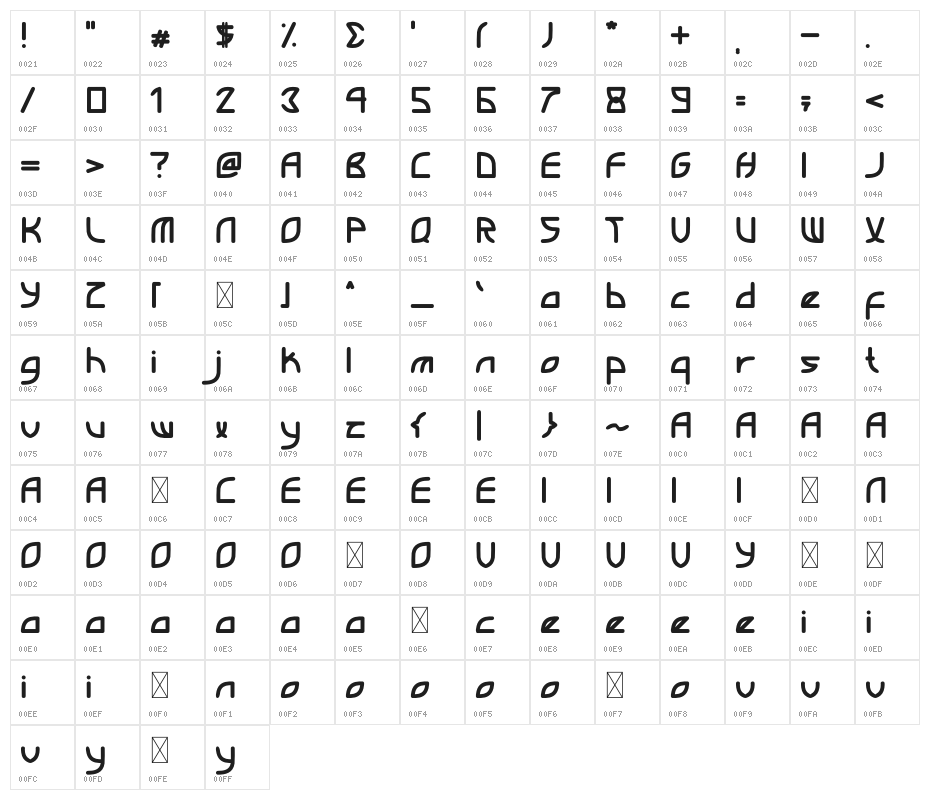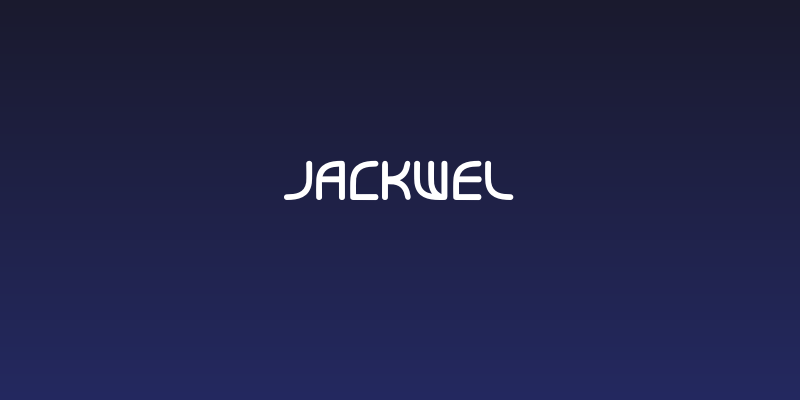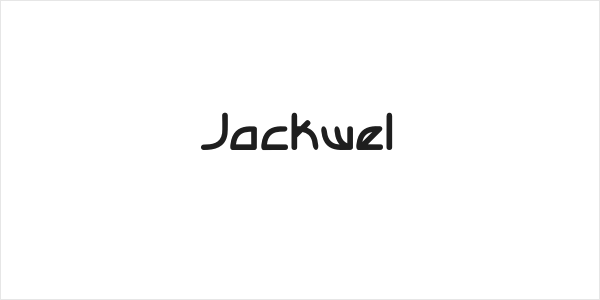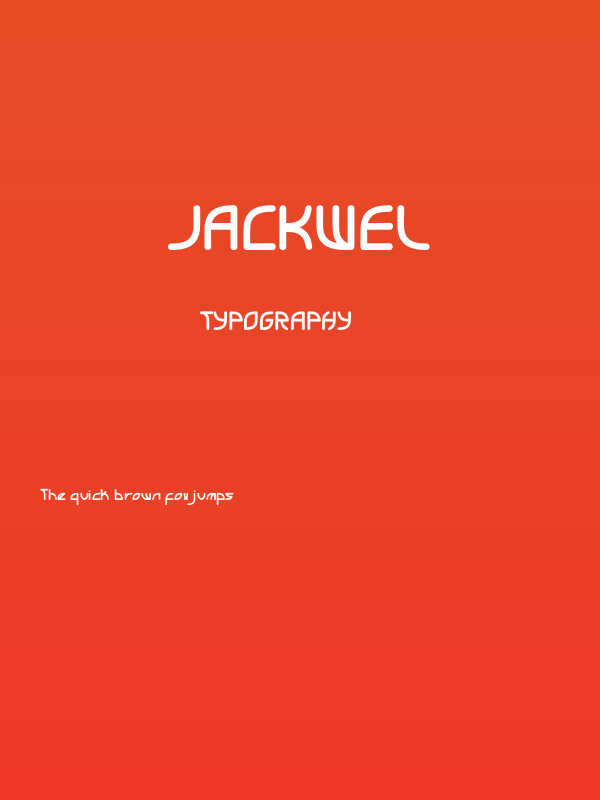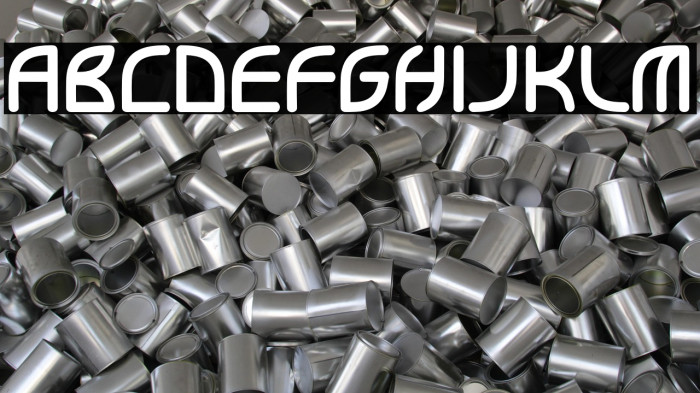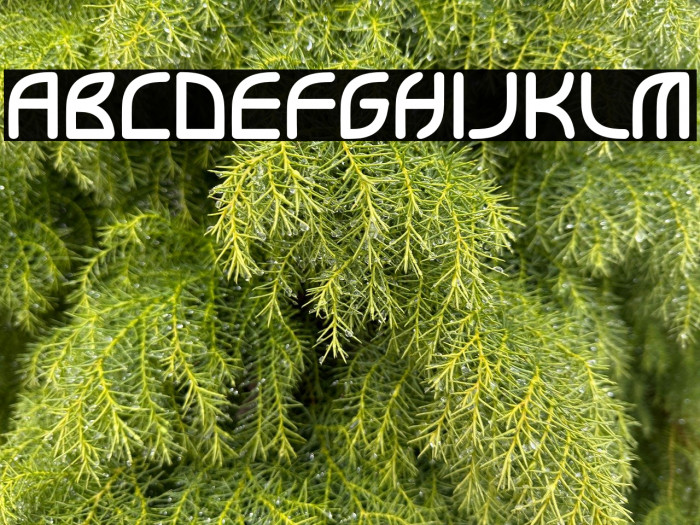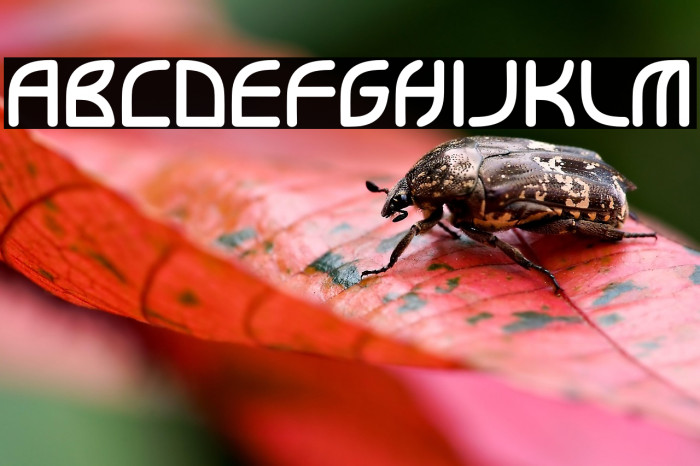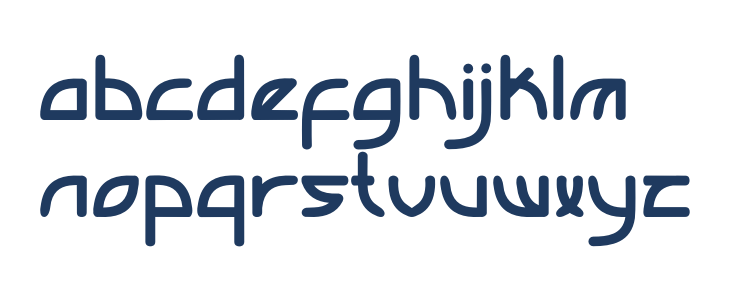
Jackwel Font
Jackwel Description
This font features a modern and futuristic design with rounded edges and a geometric structure. The characters are uniform in width, giving it a monospaced appearance, yet they maintain a playful and approachable feel. The uppercase letters are bold and prominent, while the lowercase letters retain a similar style with slightly more curvature, adding to the overall fluidity of the font. The numerals are consistent with the letterforms, ensuring a cohesive look across all characters. Special characters are uniquely styled, maintaining the font's distinctive rounded and smooth aesthetic.
| Use Case | Logos, Headlines, Digital Interfaces |
| Proposed Projects | Ideal for tech branding, futuristic designs, digital interfaces, and modern advertising. |